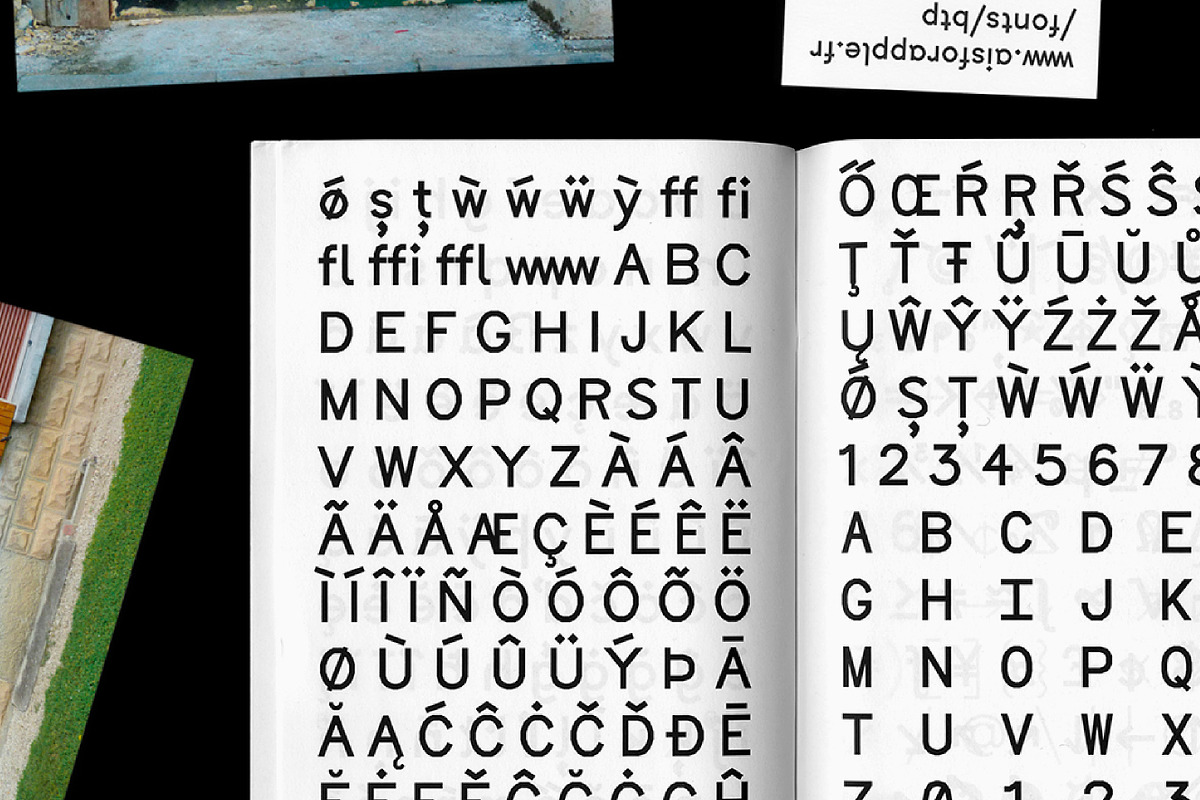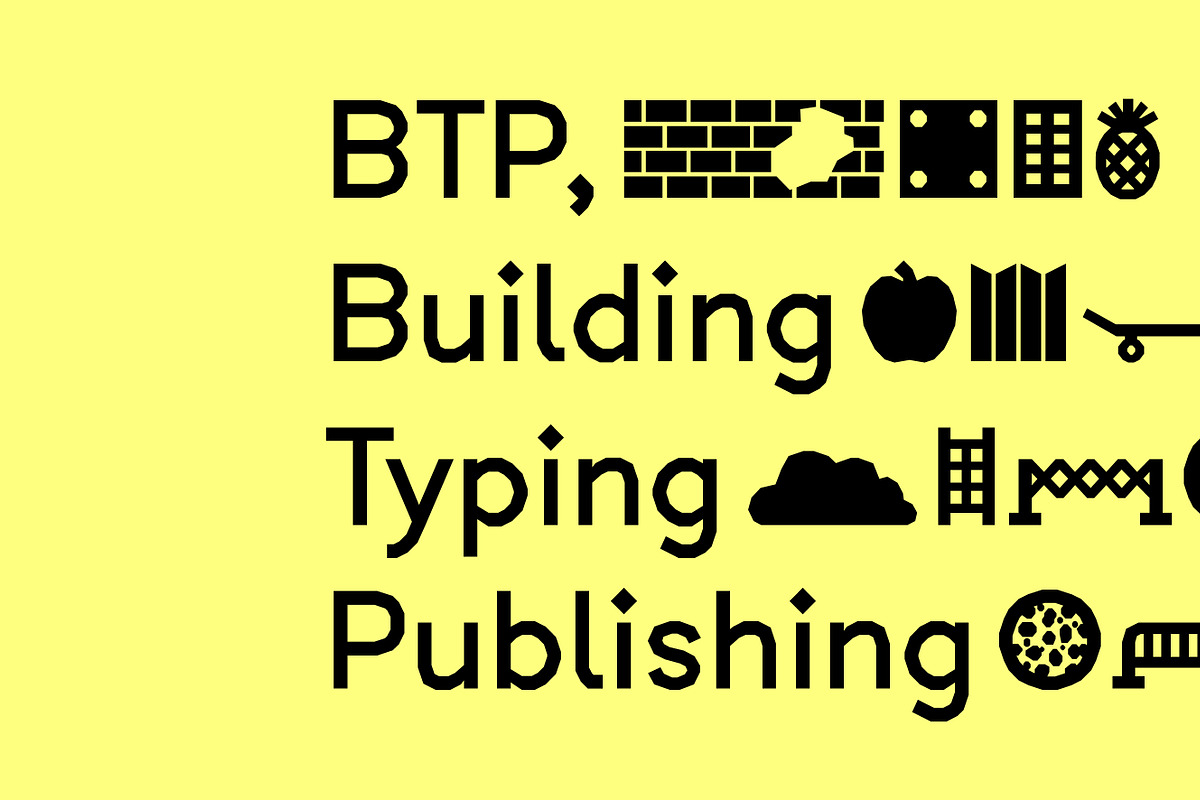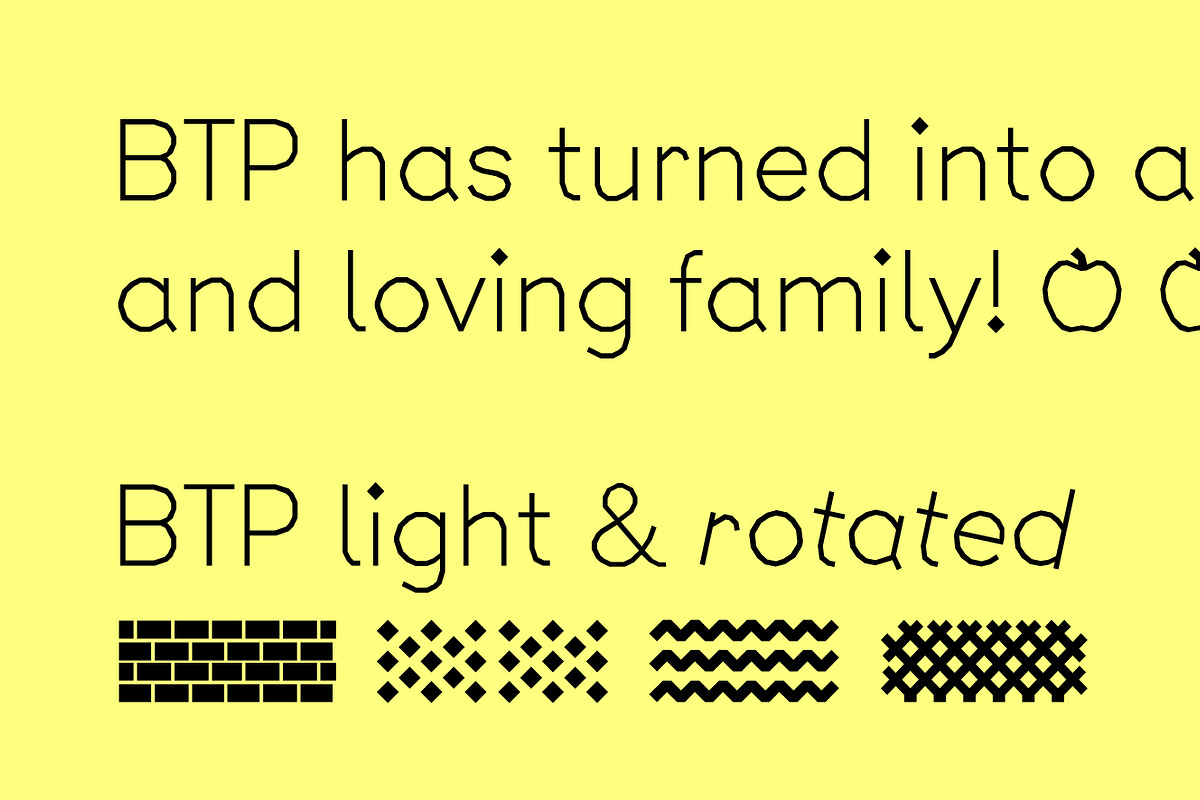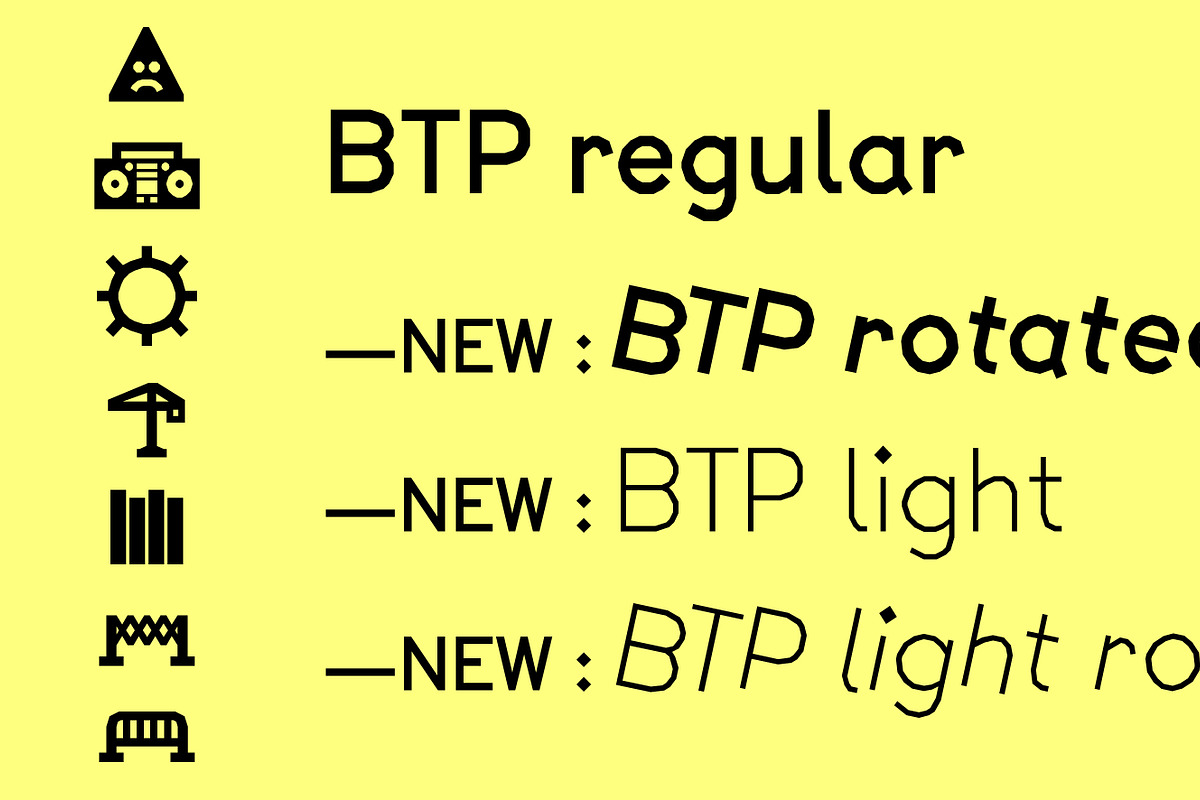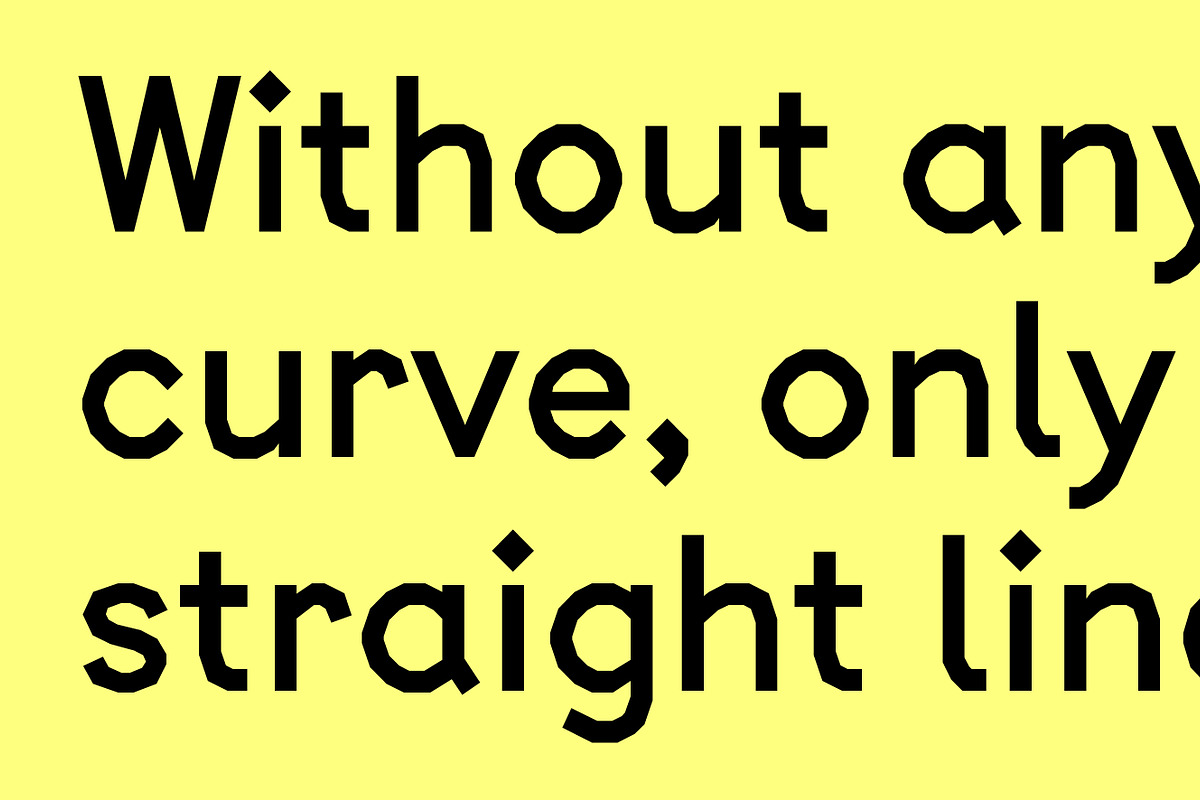
BTP
BTP is a grotesque sans-serif font designed by Jeremy Perrodeau and Guillaume Grall. Its creation was inspired by the default typeface used in AutoCAD, the popular computer-aided design software favored by architects. The resulting font features angular curves and is available in a single multifunction weight suitable for headlines and display purposes.